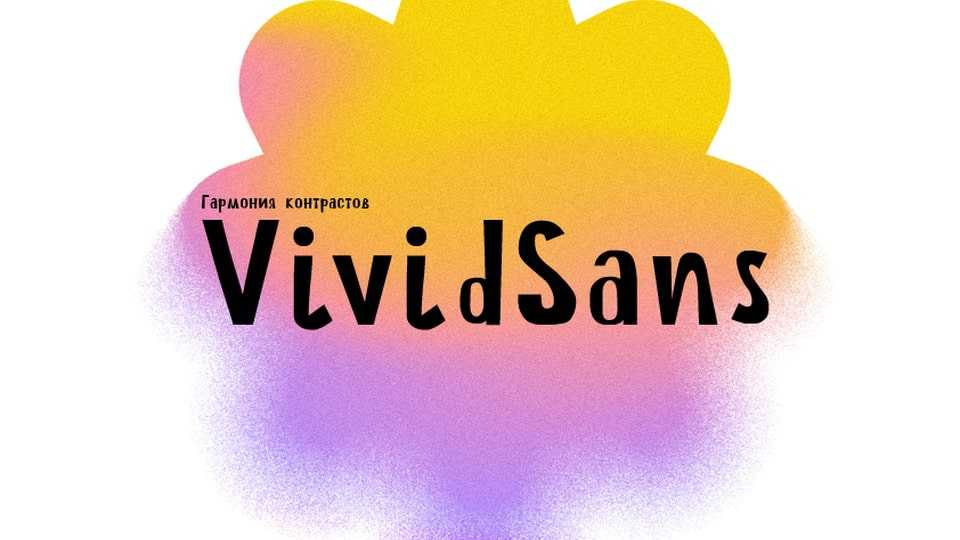
Download Vivid Sans font, a whimsical and modern typeface designed to infuse your projects with playful charm and contemporary flair. Vivid Sans font combines soft joints, harmonious strokes, and compact forms to create a delightful and versatile font that adds a touch of lighthearted sophistication to your designs.
Designer: Angela Musatkina